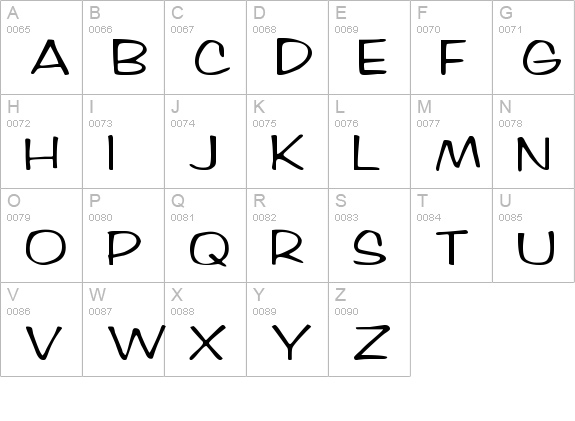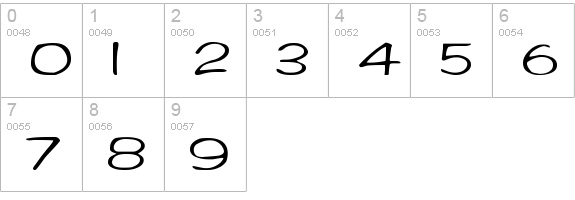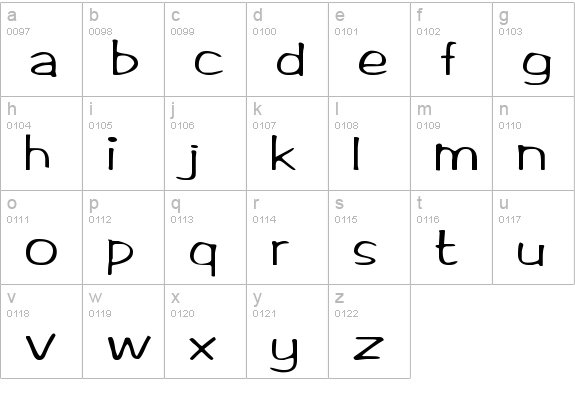
Amazona Font Details
Amazona font is a versatile and stylish typeface that will elevate your design projects to the next level. With its modern yet classic aesthetic, Amazona font is perfect for a wide range of applications, from branding to editorial design. Its clean lines and elegant curves make it easy to read while adding a touch of sophistication to any project. What's even better is that Amazona font is available for free download at FontsMarket.com. Now you can access this beautiful font without breaking the bank, making it the perfect choice for designers on a budget. Whether you're working on a personal project or a client's design, Amazona font will help you achieve professional results with ease. Download Amazona font today and take your designs to new heights!